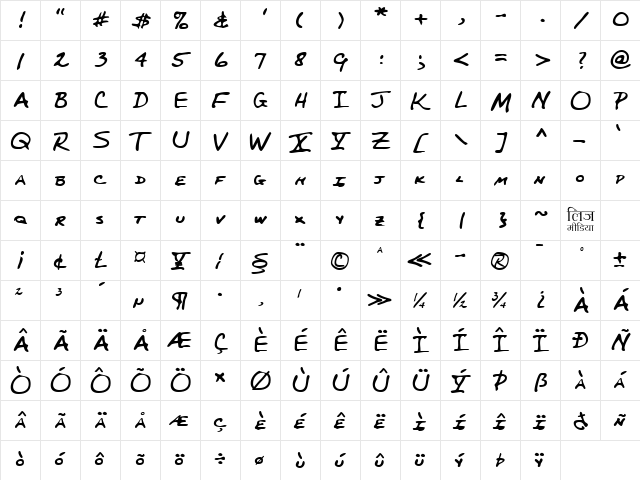
LEHN227 Regular Font Preview
LEHN227 Regular
LEHN227 Regular Font Details
Design Context for LEHN227 Typeface
LEHN227 is a composed and adaptable typeface that performs quietly and consistently across a wide range of design contexts.